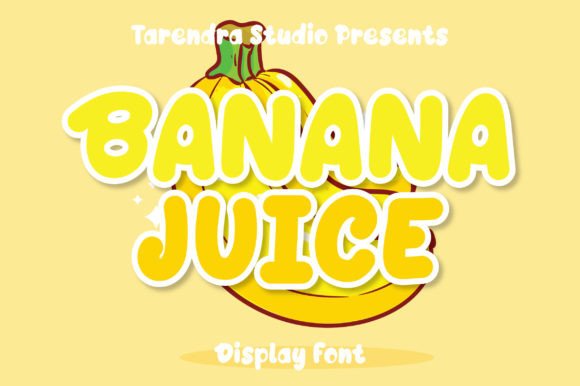
Introducing the Banana Juice Font - the perfect addition to your fonts collection! Created by Juliolailydomingo, this font boasts a beautiful and unique design that will surely capture the attention of anyone who lays eyes on it.
If you're looking for the best font for kids ministry, look no further than Banana Juice! With its fun and playful design, this font is the perfect choice for any children's project. Its whimsical curves and charming details are sure to bring joy and excitement to any project you're working on.
But Banana Juice isn't just for kids' projects. This font is versatile enough to be used in a variety of different contexts. Whether you're creating a poster, designing a website, or crafting a social media graphic, Banana Juice is the font you need to make your work stand out.
With its unique design and eye-catching appeal, Banana Juice has the potential to turn any project into a masterpiece. It's the perfect choice for anyone looking to add a touch of creativity and personality to their work.